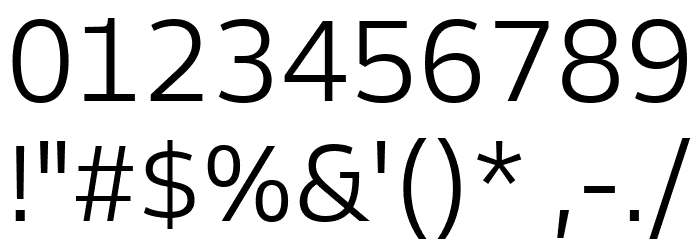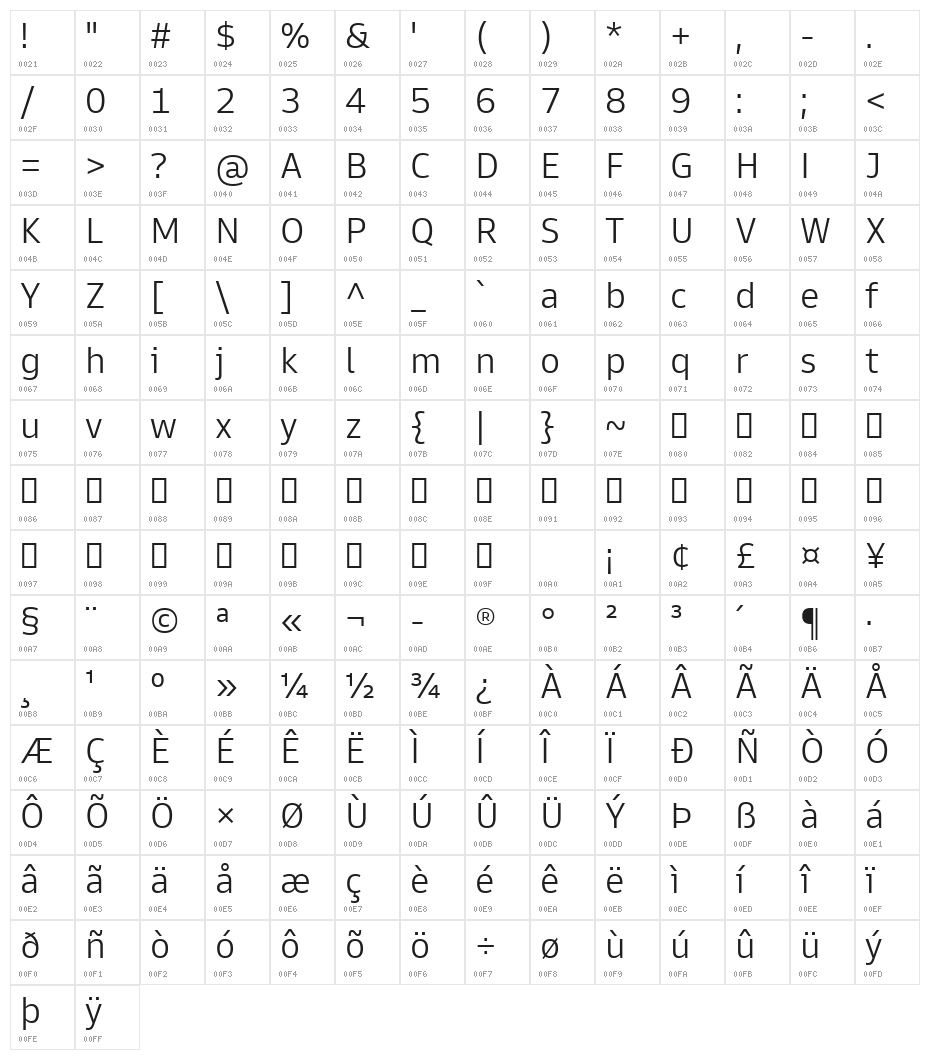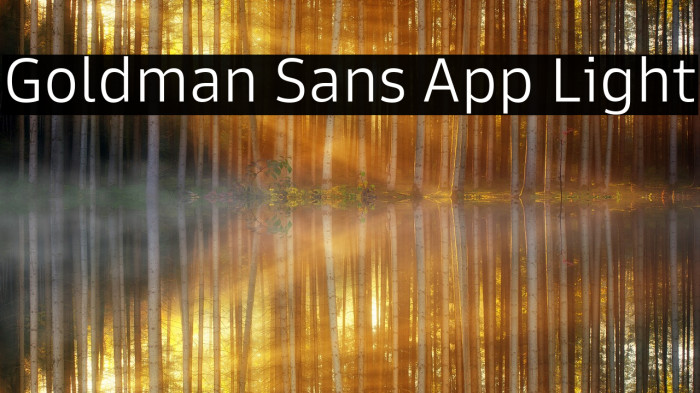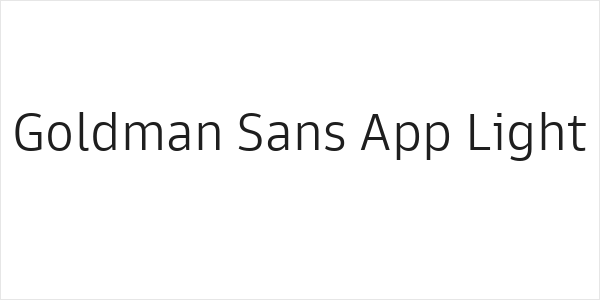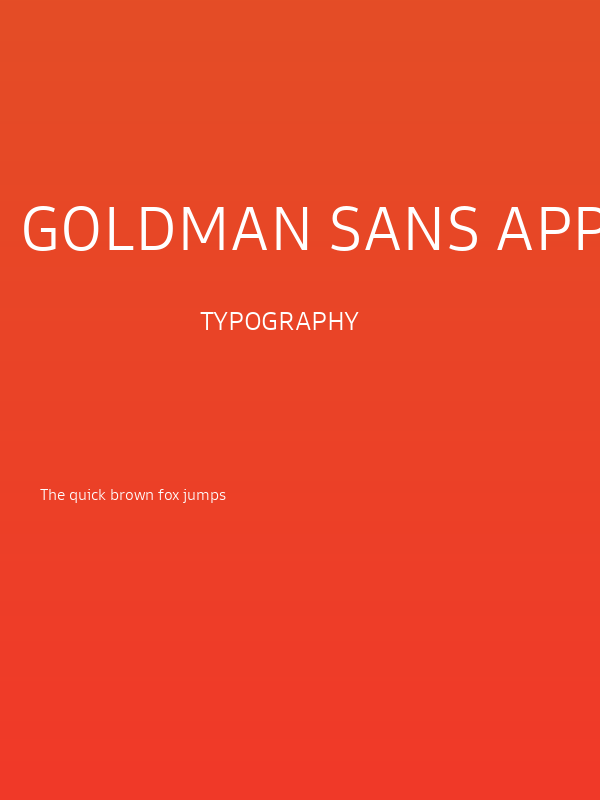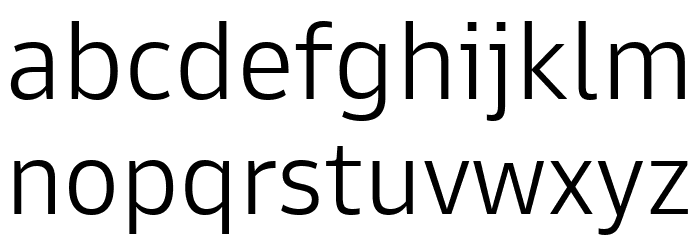
Goldman Sans App Light Font
Goldman Sans App Light Description
This font features a clean and modern sans-serif design with a focus on readability and simplicity. The characters are evenly spaced and exhibit a uniform stroke width, contributing to a balanced and harmonious appearance. The uppercase letters are bold and assertive, while the lowercase letters maintain a friendly and approachable feel. The numerals are clear and distinct, making them easily legible. Special characters are designed with the same attention to detail, ensuring consistency throughout the typeface. This font is versatile, suitable for both digital and print media, and can be used in a variety of contexts where clarity and modernity are desired.